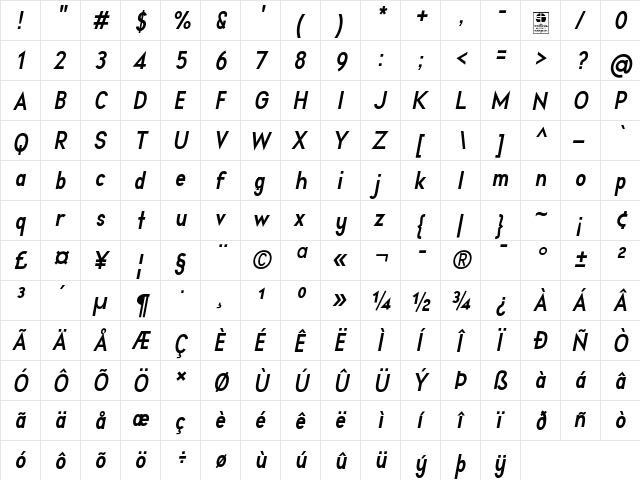
Aprikas Bold Italic Demo Regular Font Preview
| Foundry | StudioTypo |
| Designer | MEHMET ABACI |
Design Context for Aprikas Bold Italic Demo Typeface
Aprikas Bold Italic Demo offers clean, dependable letterforms without strong stylistic allegiance, making it a practical choice for designers who need flexibility. The slanted form adds forward momentum and visual energy. Its bold stroke weight gives it real presence on the page.
Pro Tip: Try Aprikas Bold Italic Demo for annotation and caption copy alongside an upright companion — the contrast in angle creates a dynamic but ordered typographic system.